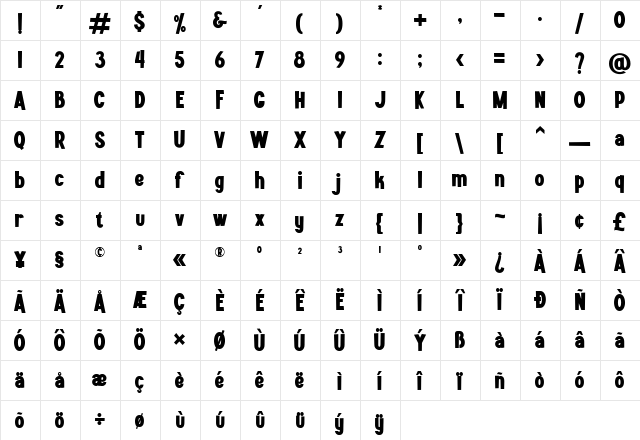
Mintmolly Regular Free Font
Mintmolly Regular
Foundry: Kong font
Designer: Kong font
Design Context for Mintmolly
Mintmolly is a composed and adaptable typeface that performs quietly and consistently across a wide range of design contexts.